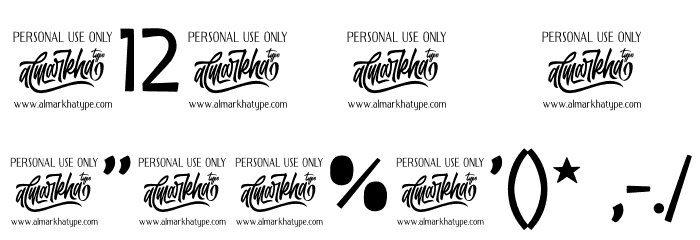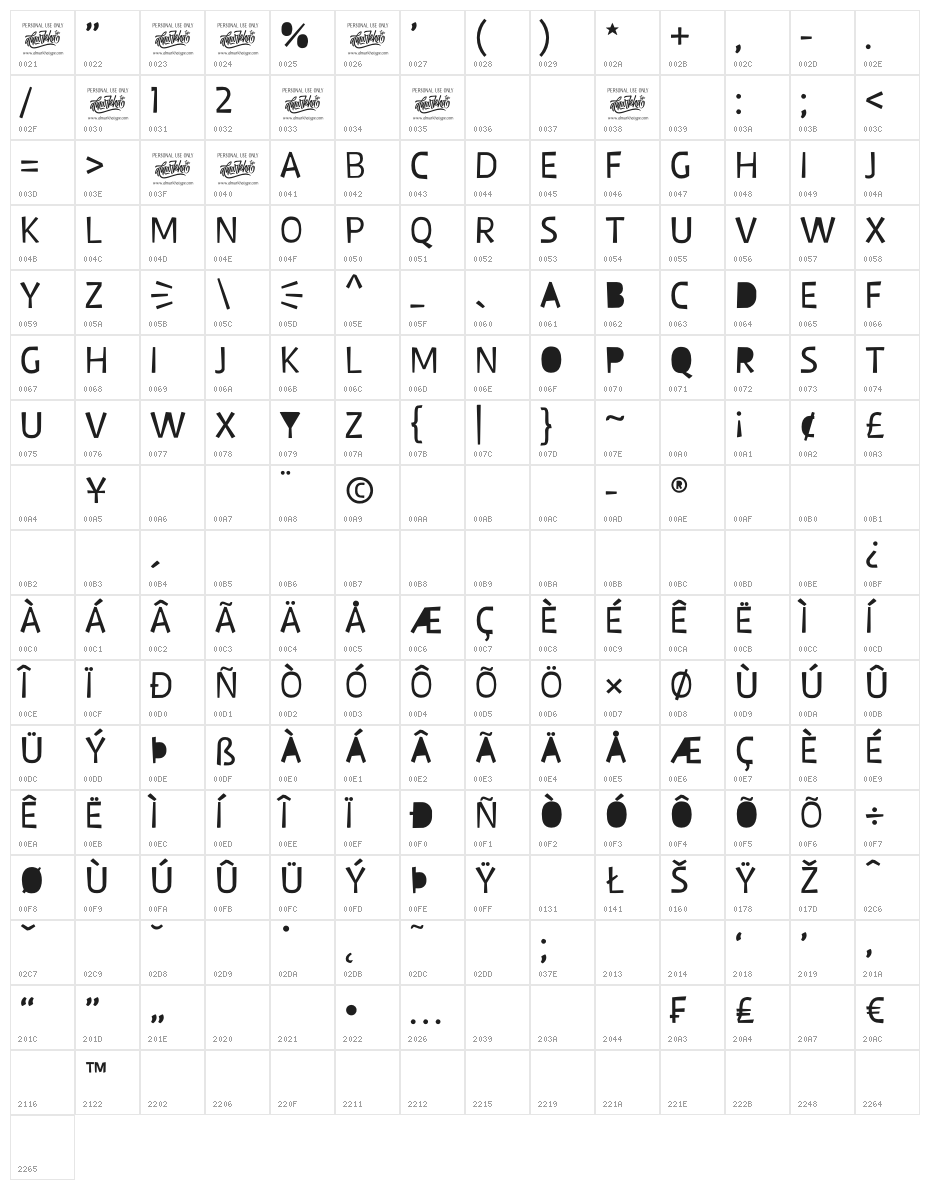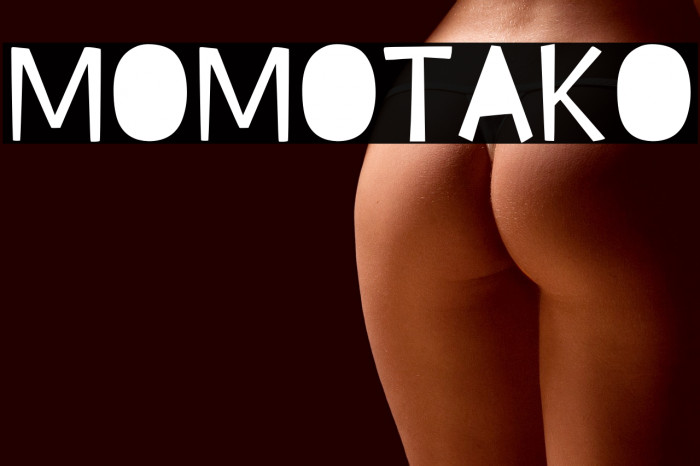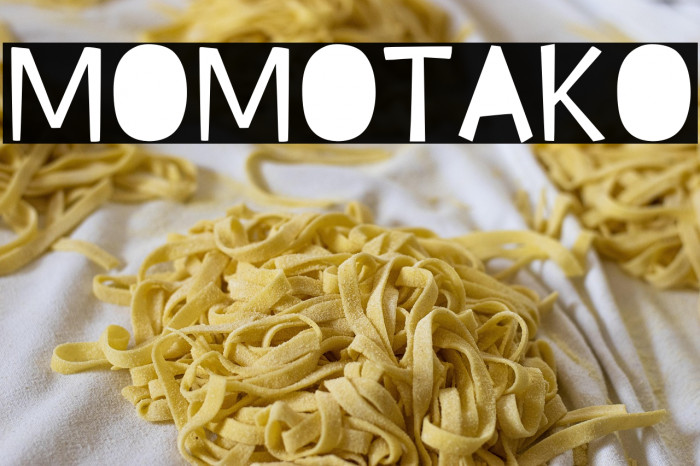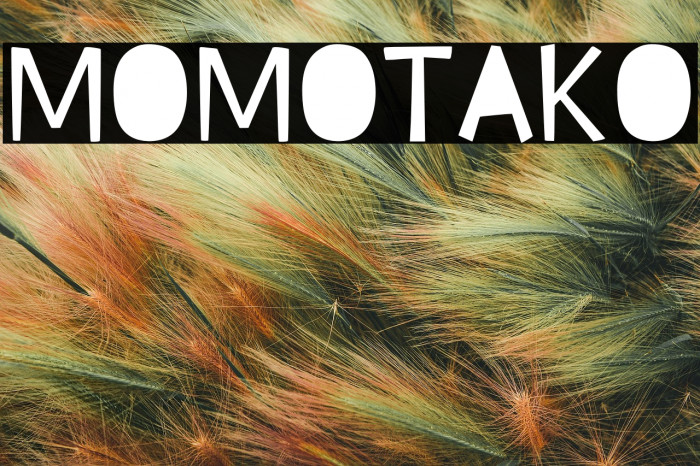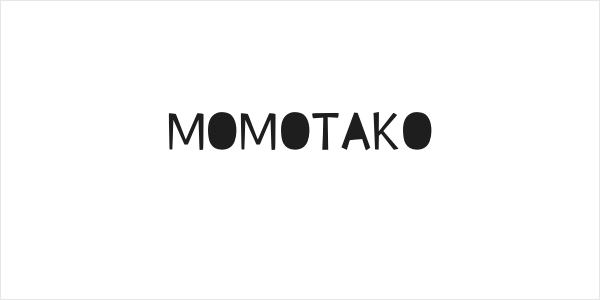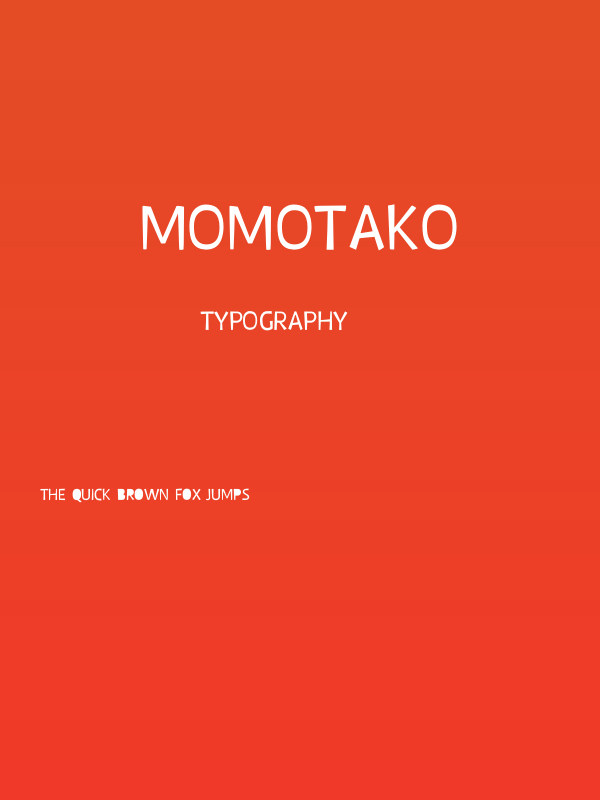
Momotako Font
Momotako Description
This font features a bold and playful design with a unique, hand-drawn aesthetic. The uppercase letters are characterized by thick, uneven strokes that give a sense of movement and energy. The lowercase letters maintain this dynamic style, with some characters having exaggerated curves and angles. The numbers and special characters follow the same artistic approach, making them stand out with their distinctive shapes. Overall, the font exudes a whimsical and creative vibe, perfect for projects that require a touch of personality and flair.
| Overall Style | Playful, Artistic |
| Proposed Projects | Ideal for creative projects such as posters, children's books, branding for playful products, and artistic invitations. |